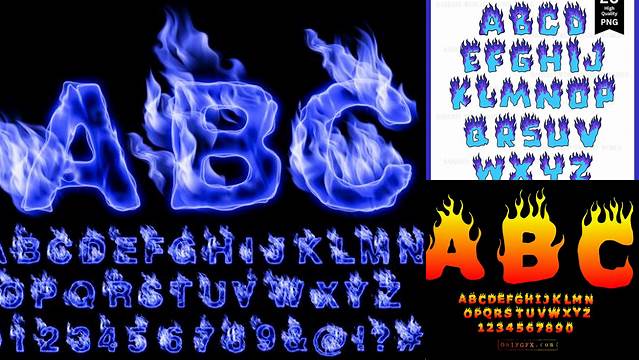
Hey everyone! Ever wanted to spice up your designs with something hot, literally? 🔥 We're diving into the world of cool font blue fire alphabet today, and I'm gonna hook you up with some awesome free downloads. Get ready to add a fiery touch to your projects! From logos and posters to social media graphics and even website headers, these fonts are perfect for making a bold statement. We're talking about the cool font blue fire alphabet from A to Z, so you can unleash your creativity without limits. I will provide you with the best resource to download these fonts.
H2: The Allure of Blue Fire Fonts
So, why blue fire fonts? Well, guys, they're just plain cool! The combination of the ethereal blue flames with the structure of an alphabet creates a visual impact that's hard to ignore. Blue fire is often associated with energy, mystery, and a touch of the supernatural. It's a fantastic way to grab attention and evoke strong emotions. Think about it: you're designing a logo for a gaming company, a metal band, or even a tech startup. A cool font blue fire alphabet can instantly convey a sense of power, innovation, and excitement. And the best part? You can download these fonts for free, which means you can experiment with them without any financial commitment. The versatility of these fonts is another major advantage. They can be used in various design contexts, from edgy to elegant, depending on the style of the font itself and how you use it. Furthermore, blue fire fonts are relatively unique. While there are plenty of fonts available, the ones that incorporate this particular aesthetic are less common, making your designs stand out from the crowd. They bring a level of sophistication and visual interest that can be hard to achieve with standard fonts. Whether you're a professional designer, a student, or just someone who loves to create, having access to a cool font blue fire alphabet opens up a world of possibilities. Let's get into some specifics and find the best ones!
H3: Decoding the Blue Fire Aesthetic
The appeal of the cool font blue fire alphabet isn't just about aesthetics; it's also about what those aesthetics represent. The color blue, in particular, carries a lot of symbolic weight. It often represents trust, loyalty, wisdom, confidence, and intelligence. When combined with the imagery of fire, you get a visual contrast that is both captivating and thought-provoking. The fire element adds a sense of movement, energy, and transformation. It can represent passion, destruction, and rebirth. Together, these elements create a dynamic and visually stunning effect. When you're choosing a cool font blue fire alphabet, you're not just picking a font; you're choosing a visual language. It's important to understand how the font's style interacts with these underlying meanings to communicate your message effectively. Some fonts might lean towards a more aggressive, fiery look, while others might have a more subtle, elegant flame effect. Pay attention to the details: the shape of the flames, the way they interact with the letterforms, and the overall balance of the design. A well-chosen font can transform your designs from something ordinary into something extraordinary. These fonts are also incredibly useful for creating a sense of depth and dimension. The interplay of light and shadow within the flame effect can make your text appear to leap off the page. You can use them in ways that draw the viewer's eye and hold their attention.
H2: Finding the Best Free Downloads
H2: Designing with Fire: Tips and Tricks
Ready to bring the heat? Designing with a cool font blue fire alphabet can be incredibly effective if done right. First, consider the context of your design. What message are you trying to convey? Is it about energy, passion, or a sense of danger? Let this guide your font choice and overall design. A well-chosen background can make your fiery font pop. Dark backgrounds often work well because they create contrast. You can also use background images like a starry sky or a smoky texture to enhance the effect. The way you style the text is crucial. Experiment with effects like outlines, glows, and shadows to make your font stand out. Think about how the flames interact with the letterforms. Some fonts have flames that appear to engulf the letters, while others might have a more subtle effect. This choice will impact the overall look and feel of your design. Pair your fiery text with complementary design elements. Use contrasting colors to make the fire stand out. A cool-toned background with a warm-toned font or vice versa can create a dynamic visual contrast. The font and other elements need to be well-balanced to make the design work. Consider the overall layout of your design. The font should be placed in a way that draws the viewer's eye. Create visual hierarchy by varying font sizes and weights.
H3: Mastering the Flame Effect in Your Designs
To make the most of your cool font blue fire alphabet, it's useful to understand how to master the flame effect. A key factor is color. Blue fire fonts usually use a gradient of blues, purples, and oranges. You can create a gradient using your design software. Experiment with the opacity of the flames to create depth and realism. Consider adding a glow effect to the flames to make them appear more luminous. Many design programs allow you to add inner and outer glows, which can enhance the flame effect. The outline of the font is also important. Experiment with different outline styles and thicknesses to create a visual contrast. Be mindful of the overall composition and ensure that the flame effect enhances the message you are trying to convey. Consider the movement of the flames. Some fonts have static flames, while others have a more dynamic, flowing effect. Use different font styles and effects to test them out.
H2: Choosing the Right Font for Your Project
The cool font blue fire alphabet is not a one-size-fits-all solution. The ideal font will depend on the project. For a metal band logo, a bold, aggressive font with a strong flame effect might be ideal. For a tech startup, a more modern font with a subtle flame could be more appropriate. Consider the personality and message of your brand or project. If you're going for a mysterious vibe, a font with a darker, more shadowy flame might work. If you want to convey energy and excitement, choose a font with bright, dynamic flames. A good font should be readable. Test your font at different sizes to make sure that the text is easy to read. Make sure that the font complements the other design elements. A font must blend in well with the rest of the design. Consider the overall balance and harmony of your design. Take your time to explore different options and see which font best fits your project. Readability is vital; if people cannot read your text, the message will be lost.
H3: Font Selection for Various Design Needs
Finding the right cool font blue fire alphabet is key. If you're designing a logo for a gaming company, look for a bold, futuristic font with a strong flame effect. Something that evokes speed, innovation, and excitement. For social media graphics, choose a font that is legible, attention-grabbing, and works well with various backgrounds. Consider the different variations you can achieve within each font family. If you are creating a website header, consider a font that's not too distracting and visually appealing. Make sure it is optimized for online viewing. Think about the overall brand aesthetic and the type of audience you are trying to reach. Each design project has its own unique set of challenges and requirements. Adaptability is key.
H2: Combining Fire Fonts with Other Design Elements
Your cool font blue fire alphabet doesn't exist in a vacuum. You'll need to combine it with other design elements to create a cohesive and compelling visual. First, think about your color scheme. Use contrasting colors to make your fiery font pop. The color palette can significantly impact the look and feel of your design. A cool-toned background with a warm-toned font or vice versa can create a dynamic visual contrast. Use supporting graphics like flames, sparks, or smoke to enhance the fire effect. These elements can be used to create a sense of depth and movement. The images or graphics should complement the overall look of the design. Consider the layout of your design. The font should be placed in a way that draws the viewer's eye. Establish a visual hierarchy by varying font sizes and weights. Make use of negative space to create balance and prevent your design from appearing cluttered. Remember that the design elements are all supposed to work together to deliver the desired message. The visual appeal of your design is highly dependent on all the design elements.
H3: Harmonizing Your Font with Other Elements
Creating designs with a cool font blue fire alphabet requires a certain degree of harmony with other design elements. Choose a background that complements the font. A dark background can make the flames stand out, while a lighter background can make the font more subtle. Consider the style of your supporting graphics. If your font is bold and aggressive, you can use sharp lines and dynamic shapes. If your font is more subtle, consider using rounded shapes. Make sure to establish a visual hierarchy. Vary the font sizes and weights to create a balanced design. Choose a color scheme that complements the font. If your font is blue, you can use a variety of blues, oranges, and purples. Always test different combinations to see what works best. Make sure you have considered all the design elements before starting a project.
H2: Avoiding Common Design Pitfalls
It's easy to make mistakes, even when working with something as exciting as a cool font blue fire alphabet. One of the most common pitfalls is overcrowding your design. Don't try to cram too much information or too many elements into a single design. Keep it clean, simple, and easy to understand. Another mistake is choosing a font that is difficult to read. Make sure your font is legible, especially at smaller sizes. Always test your font at different sizes to ensure that the text is easy to read. Don't overuse the fire effect. A little goes a long way. Too much fire can be overwhelming and distract from your message. Consider how you position your text. Avoid placing your font in a way that makes it hard to read. Ensure that your text is aligned properly. Poor color contrast can also be a problem. Make sure there is enough contrast between your text and the background so that it is easy to read. Ensure that your font complements the overall look of your design.
H3: Mistakes to Avoid When Using Fire Fonts
Even if you're working with a cool font blue fire alphabet, there are some mistakes that should be avoided. Don't overuse the flame effect. Too much of a good thing can be overwhelming and detract from your message. Ensure that your font is easy to read. Test your font at different sizes to ensure that the text is easy to read. Avoid using a font that clashes with the other design elements. Your font should be working together with the other elements and making sure your design has good balance. Make sure your design is not cluttered. Keep your design clean, simple, and easy to understand. Avoid using poor color contrast. There should be enough contrast between the font and the background. Consider the alignment of the font and its impact on readability. Don't be afraid to experiment, but do it wisely.
H2: Commercial vs. Personal Use: Understanding Licenses
Before you start using your cool font blue fire alphabet, it's crucial to understand the difference between commercial and personal use. Personal use generally means using the font for non-profit projects, such as personal blogs, social media posts, or school projects. Commercial use, on the other hand, involves using the font for projects that generate income or promote a business, such as logos, branding materials, or product packaging. Most free fonts are licensed for personal use only. If you plan to use a font commercially, you'll usually need to purchase a commercial license, which can cost anywhere from a few dollars to hundreds of dollars. Always check the license details on the download page. It's important to respect the designer's rights and follow the license terms. If in doubt, it's always better to err on the side of caution and seek clarification from the designer or the font provider. Some licenses might allow you to use the font commercially, provided you give the designer credit or make certain modifications. Make sure to review the details.
H3: Navigating Font Licenses for Commercial Projects
If you're planning to use a cool font blue fire alphabet for commercial projects, you must carefully navigate font licenses. The license dictates how you can use the font, so understanding the terms is critical to avoid legal issues. Check the license before downloading and using the font. Always read the license agreement carefully. Make sure the font allows commercial use. If it doesn't, then you might need to purchase a commercial license. Some licenses require you to provide attribution to the designer. Ensure you follow the terms of the license if you are required to give credit. The license terms can vary, so always be aware of the specific conditions. If you are unsure of the license details, it is better to clarify with the designer. Keep a record of the license details, including the download source and the license terms. Licensing helps protect the work of designers. Always follow the rules and respect the work of the creators.
H2: Staying Updated with Font Trends
The world of fonts is constantly evolving, so it's important to stay updated. There are new trends and styles emerging regularly. Consider checking design blogs, font websites, and social media to see what's new. Follow designers and font creators to stay informed about the latest releases. Some of the major font trends are always evolving. Some design publications have the latest trends. Understanding current trends can give you fresh ideas. Stay updated with design trends. It can help to improve the visual appeal of your design.
H3: Keeping Up with the Latest Font Styles
To stay ahead of the curve with your cool font blue fire alphabet designs, keep up with the latest font styles. Regularly visit design blogs and websites dedicated to typography and fonts. These resources can show you which fonts are trending. Follow font designers and foundries on social media platforms. They often announce new releases and showcase examples of how to use fonts. Experiment with different font styles. See how you can incorporate the latest font designs into your work. Read industry publications, which offer trend reports and articles on typography. Join online communities and forums to discuss trends and gain inspiration from other designers. Be open to the latest changes. By staying updated with the latest font styles, you can keep your designs modern, appealing, and effective.
H2: The Future of Fire Fonts
As technology and design trends evolve, the future of the cool font blue fire alphabet is promising. We can expect to see even more innovative and visually stunning fonts, with designers pushing the boundaries of what's possible. Expect more dynamic effects and features. Expect to see improvements in font design. The overall trend is that fonts will continue to become more integrated into various forms of design. Staying informed and open to new possibilities will allow you to be successful.
H3: Anticipating the Evolution of Fire Font Designs
The future of cool font blue fire alphabet designs is exciting. Expect to see more sophisticated flame effects, with greater detail and realism. With advancements in technology, these fonts could be even more interactive and dynamic. Perhaps, they will respond to user actions or adapt to different screen sizes automatically. The incorporation of 3D effects and animation will likely become more common. This allows for more creative opportunities. The integration of AI could potentially lead to personalized and dynamic fonts. With the use of AI, the options are limitless. Always be prepared to embrace change and to be open-minded to new ideas.